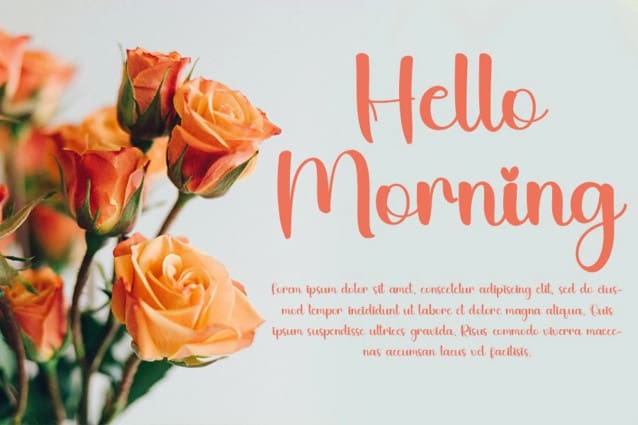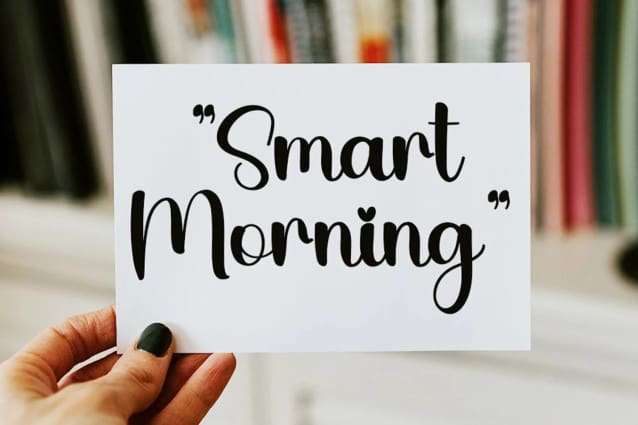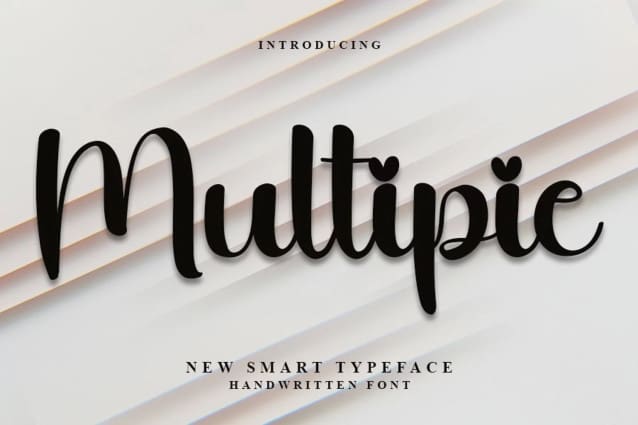
Multipie Script Font
Multipie Script Font, Multipie your favorite projects. Fall in love with its completely different and timeless style and can use it to create wall designs, logos, wedding invitations, stationery, product labels, photography and much more.